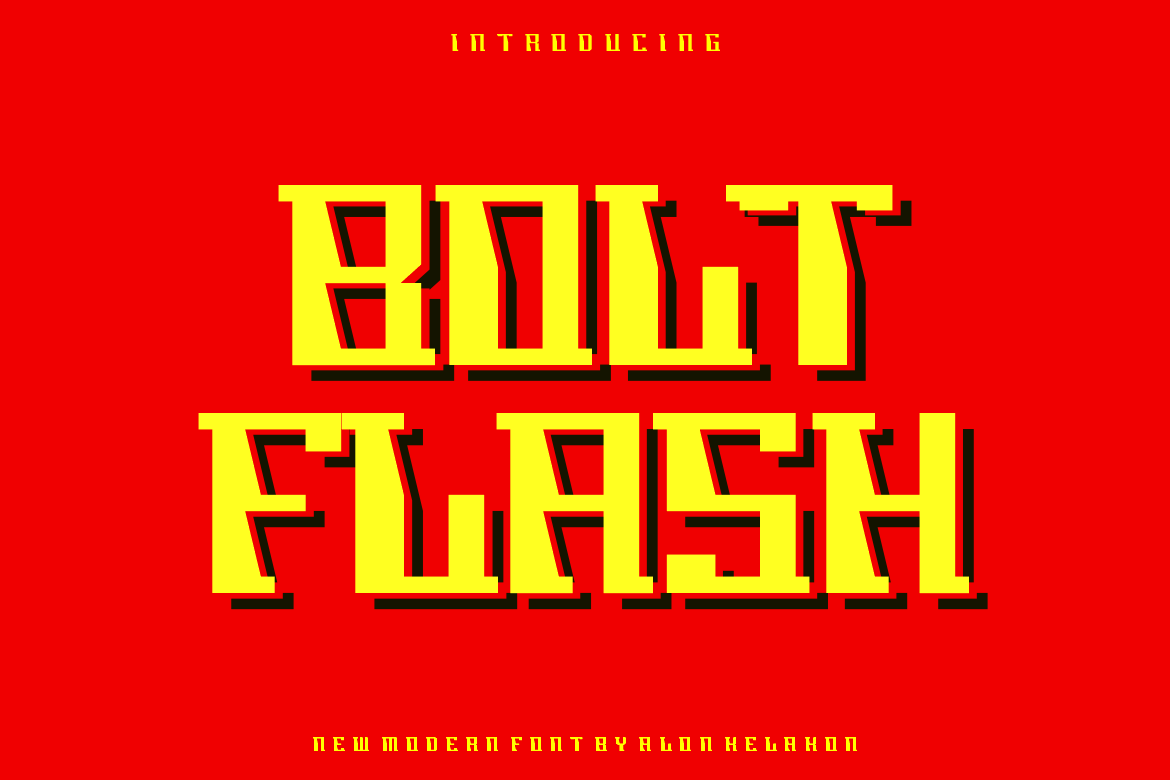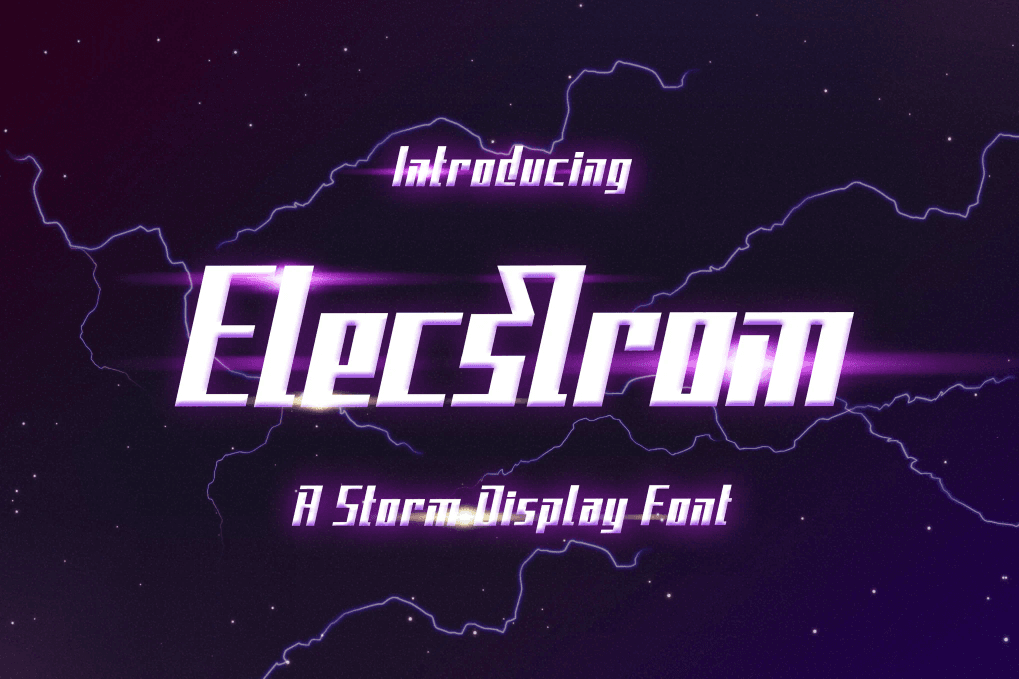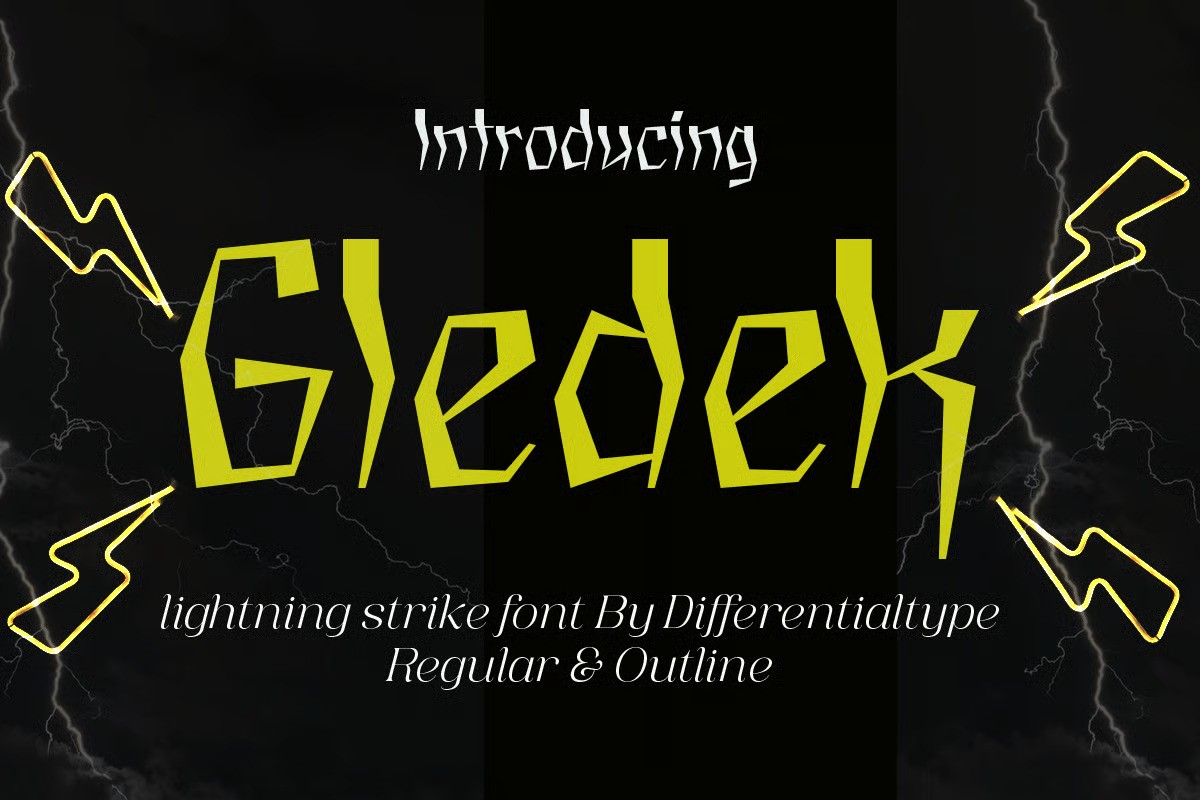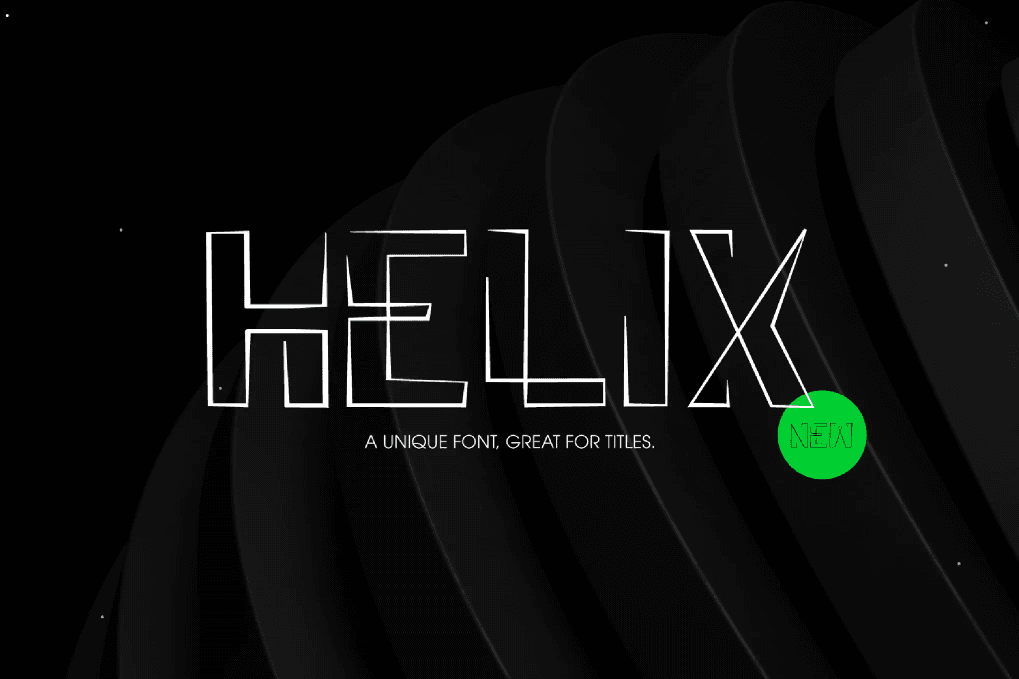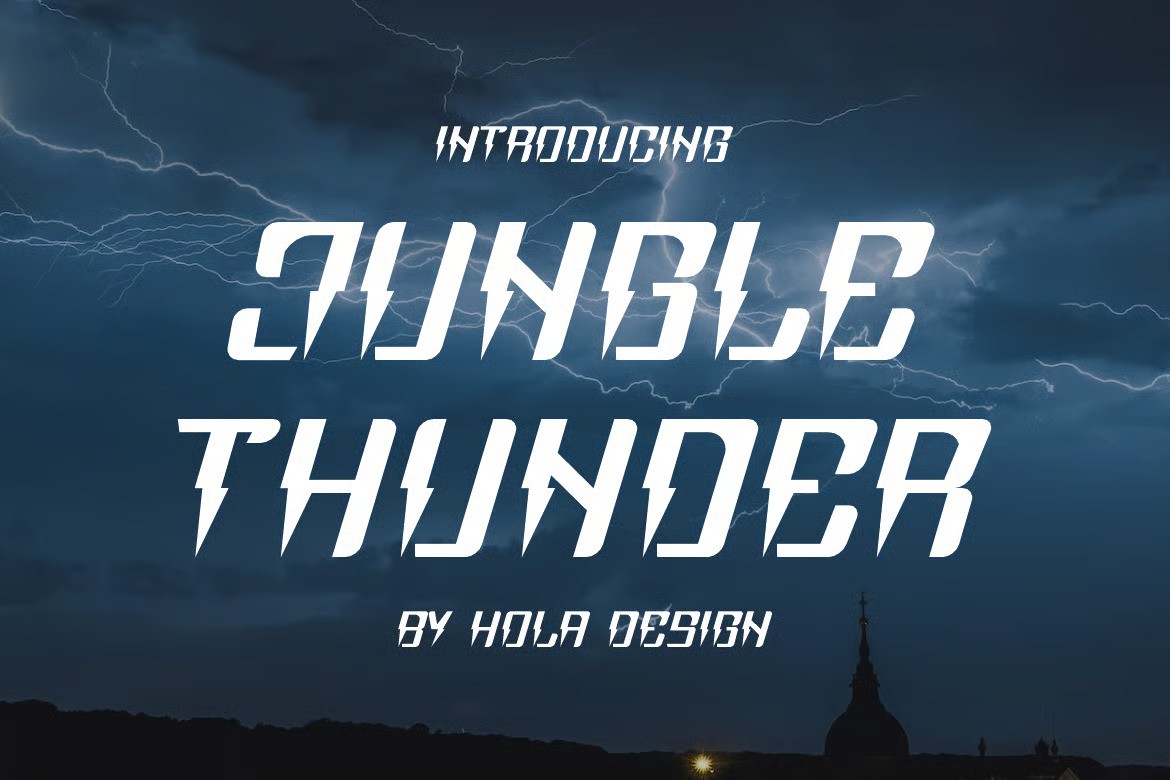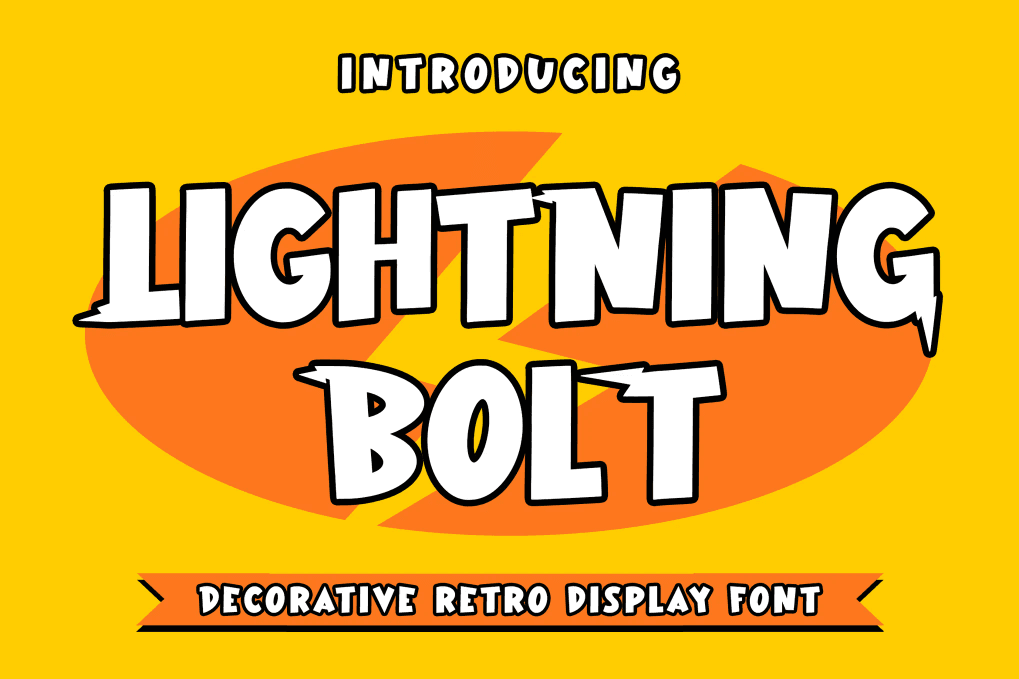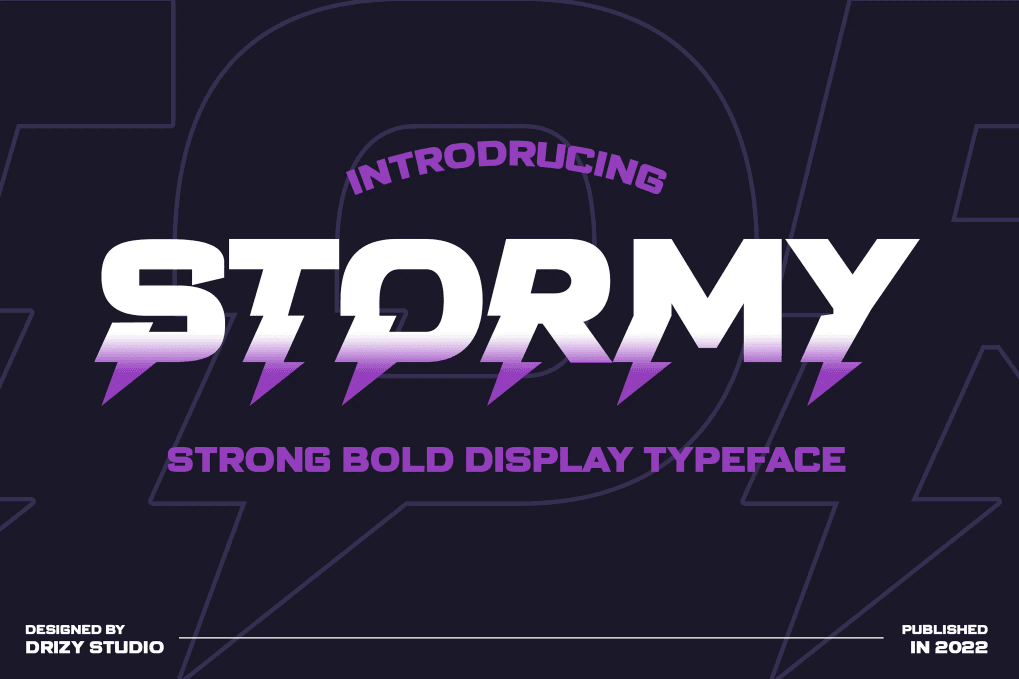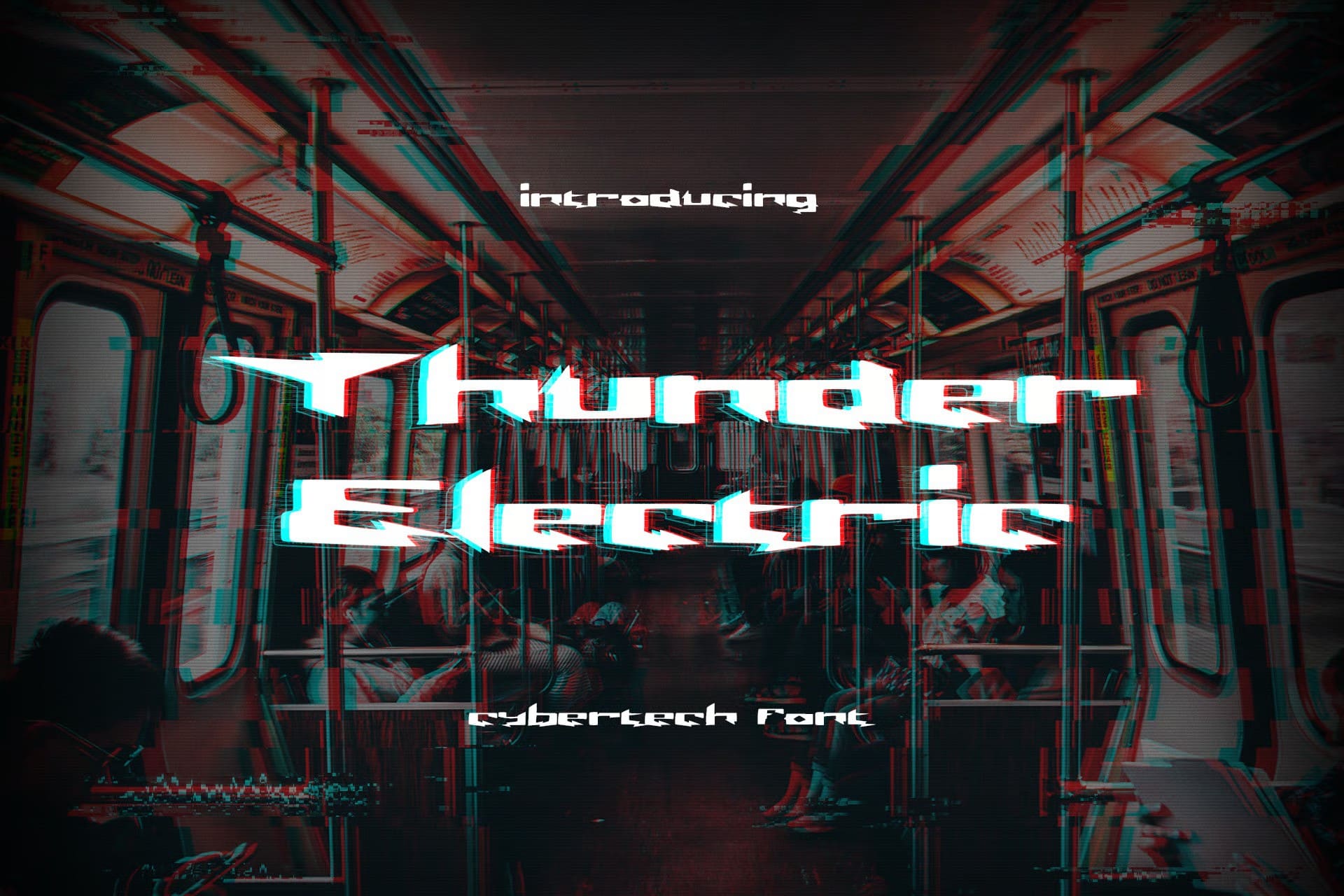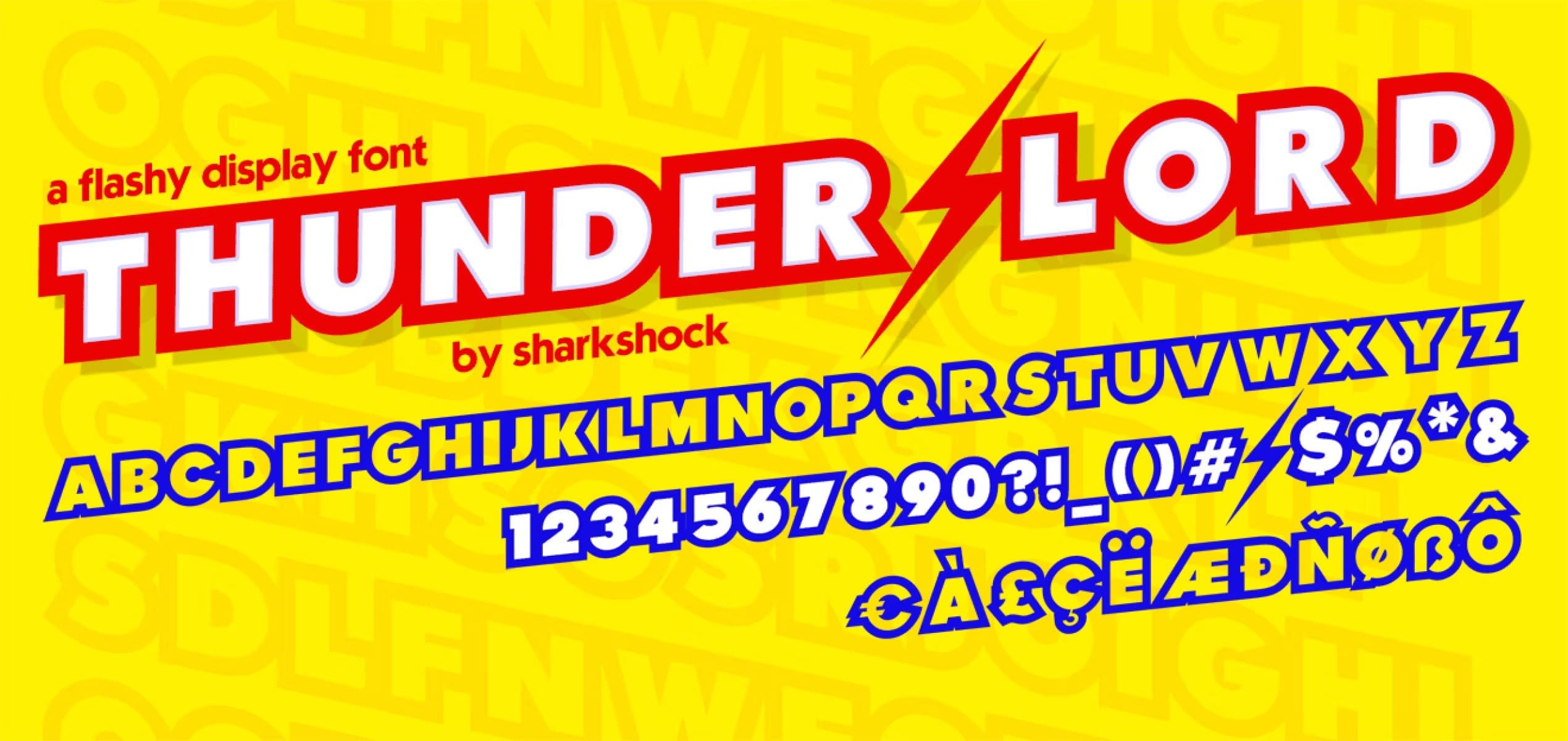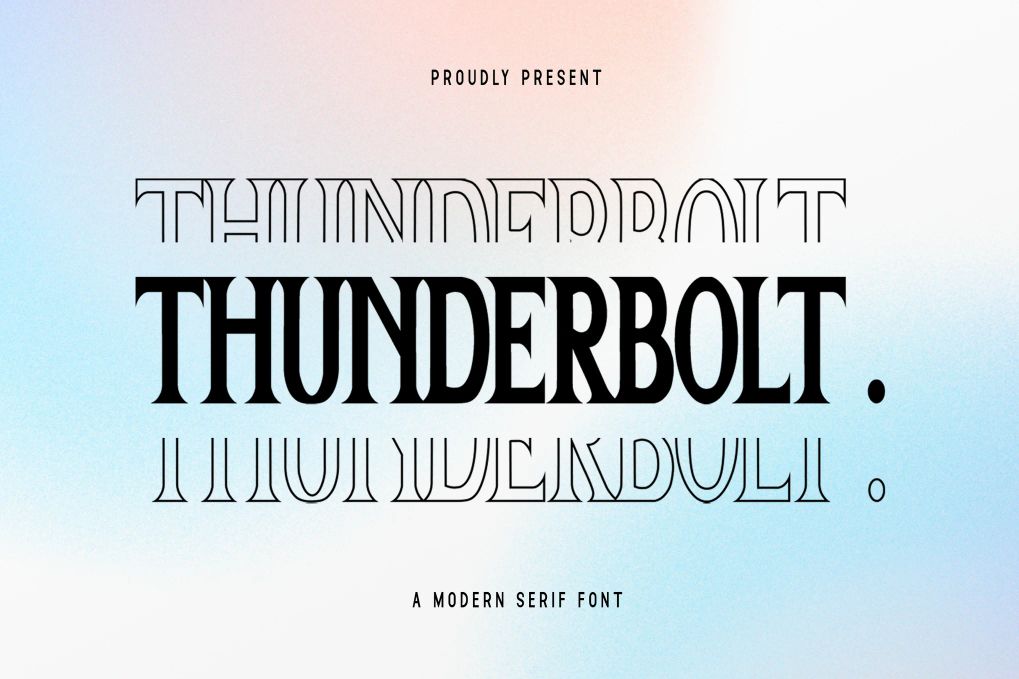
13 Lightning fonts that will electrify your designs
Add energy to your designs and use these lightning fonts to create a design style that is like a thunderbolt that wakes up even the biggest sleepers.
These amazing lightning fonts will definitely set your designs on fire. We believe that you need something that will really surprise you. We invite you not to be afraid of such provocative fonts, they are best suited for a style that does not sleep, is the center of attention.